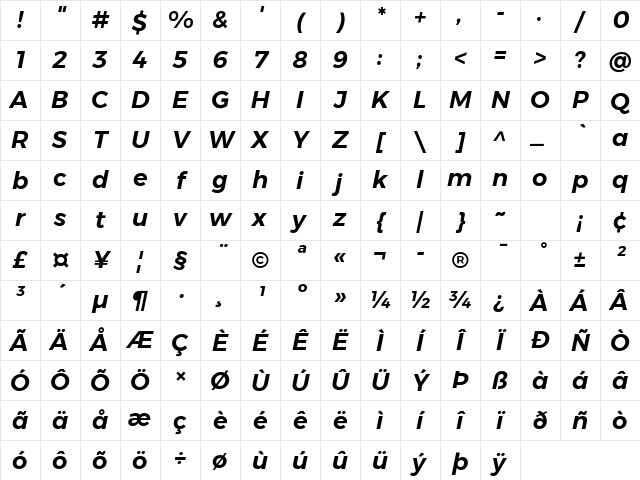
Complete Gontserrat SemiBold Italic glyph index. Displaying only characters natively supported by Gontserrat SemiBold Italic font.
Gontserrat SemiBold is a composed and adaptable typeface that performs quietly and consistently across a wide range of design contexts. The slanted form adds forward momentum and visual energy. Its bold stroke weight gives it real presence on the page.
Pro Tip: Use Gontserrat SemiBold for emphasis, pull quotes, and subheadings where its slanted energy can add rhythm to the layout.
Who designed the Gontserrat SemiBold Italic font?
This font was published by Julieta Ulanovsky. Check the technical specs section for copyright and designer details.